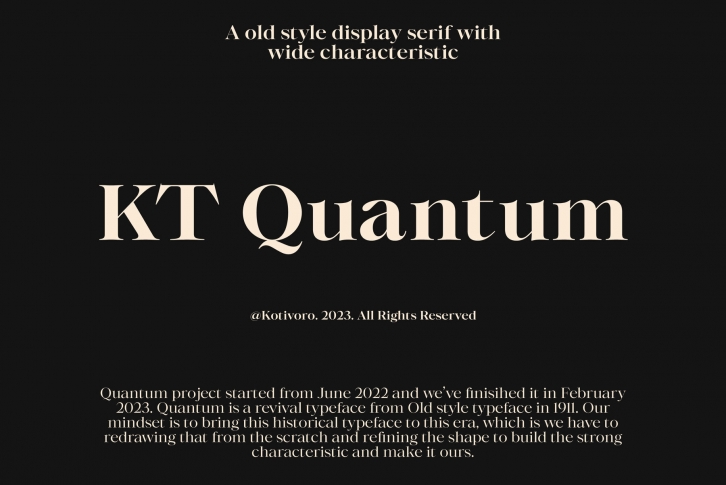
KT Quantum is a revival of a historical Old Style typeface from 1911. This typeface has been meticulously redrawn and refined to bring it into the modern era while still maintaining its original charm and character. With 420 glyphs and over 200 language support, Quantum is a versatile typeface that can be used for a variety of design projects. Its bold characteristic with both masculine and feminine effects make it perfect for headlines and sub-headlines. However, due to its large contrast, we don't recommend using it as body text in small sizes, as it may reduce legibility and readability.